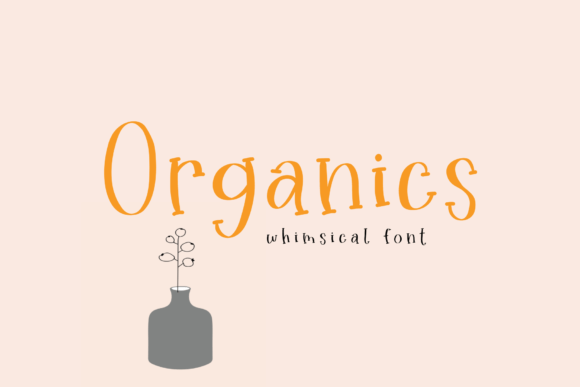
Dive into the enchanting world of Organics Font, a serif masterpiece that's destined to cast a spell on your creative endeavors. This captivating handwritten font, meticulously crafted by Cotton White Studio, is not just a collection of letters; it's an expression of art that breathes life into your designs.
With Organics Font, prepare to unleash your imagination and dance among the stars of creativity. Its strokes, reminiscent of a skilled calligrapher's hand, carry a sense of elegance and whimsy that will transform your words into visual poetry. Experience the joy of crafting personalized logos that exude an air of sophistication, branding that captivates at first glance, and notebooks and journals that become cherished keepsakes.
Picture this: your designs adorned with Organics Font, speaking volumes about your unique style and impeccable taste. Let your creativity soar as you create beautiful labels, quirky stickers, and blogs that captivate your audience. Turn quotes into works of art, greeting cards that warm hearts, and tea towels that add a dash of charm to your kitchen.
Imagine your apparel, pillows, mugs, and toys adorned with Organics Font, each piece imbued with a touch of whimsy and magic. Create posters that command attention, baby clothing that sparks joy, and picture books that transport readers to enchanting realms. Organics Font is the ultimate companion for any project that demands a stylish, handwritten touch.